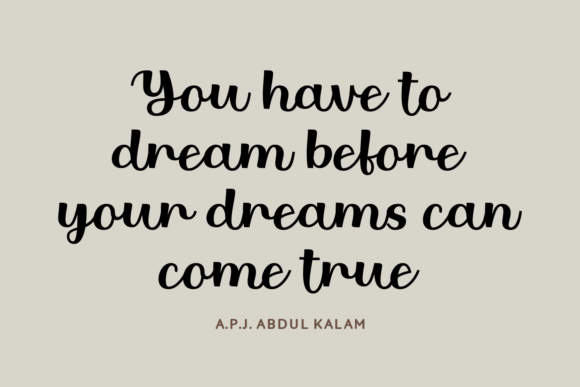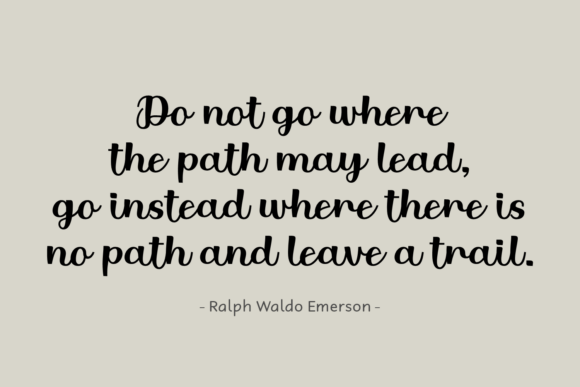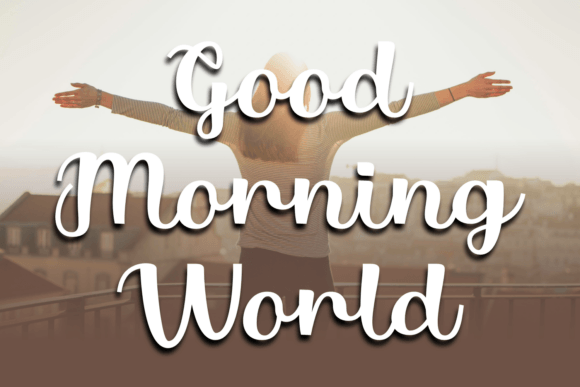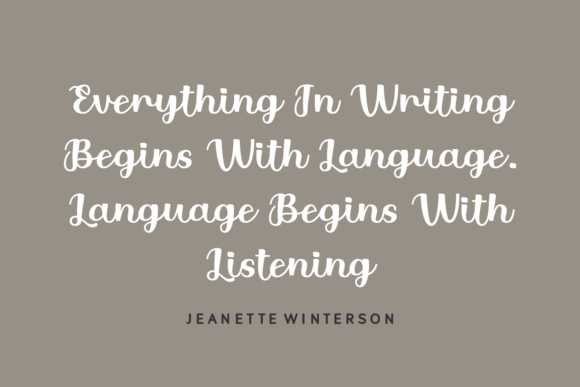
Introduction to Lulene Font
As designers, we’ve all been there – staring at a blank page, trying to find the perfect font to match our creative vision. The search can be daunting, but what if we told you that we’ve discovered a hidden gem that’s sure to elevate your designs? Meet Lulene Font, a stunning script font that’s about to become your new best friend.
Imagine adding a touch of elegance and whimsy to your invitation, greeting card, or any other creative project. With Lulene Font, you can achieve just that. Its charming swashes and flowing letters will add a playful touch, making your text stand out in a beautiful way. As a valuable design resource, Lulene Font is perfect for those who want to add a personal touch to their work without sacrificing high quality.
Key Features of Lulene Font
- High-quality, unique design resource perfect for creative projects and personal use.
- Characteristics include elegant lines, soft curves, and a touch of whimsy, making it perfect for artistic and design-focused projects.
Honest Review: Lulene Font
As a designer, I’m always on the lookout for high-quality design resources to elevate my creative projects. Lulene Font is a free download that caught my attention, and I’m excited to share my honest review.
What works well: ✨ The Lulene Font is incredibly versatile, with a range of styles and weights that make it perfect for a variety of projects. I particularly love the transparent background option, which allows for seamless integration with my design elements. The font is also incredibly easy to use, with a clear and intuitive installation process.
Here are some key features I love about Lulene Font:
- Range of styles and weights for maximum flexibility
Overall, I’m really impressed with the Lulene Font and would highly recommend it to any designer looking for a high-quality, versatile font for their creative projects.
Tips for Getting the Most Out of Lulene Font
Use the Lulene Font with a transparent background to create a unique design effect. Experiment with different font sizes and styles to add visual interest to your design project. You can also pair the Lulene Font with other high-quality fonts to create a cohesive and professional look.
The Lulene Font is ideal for creative projects that require a modern and elegant look. Some common use cases include designing business cards, brochures, and social media graphics. You can also use the Lulene Font to create a consistent brand identity across all your marketing materials.
Alternatives to Lulene Font
Montserrat is a popular sans-serif font that’s widely used in various design projects. Its high-quality design and wide range of weights make it an excellent choice for designers seeking a reliable font.